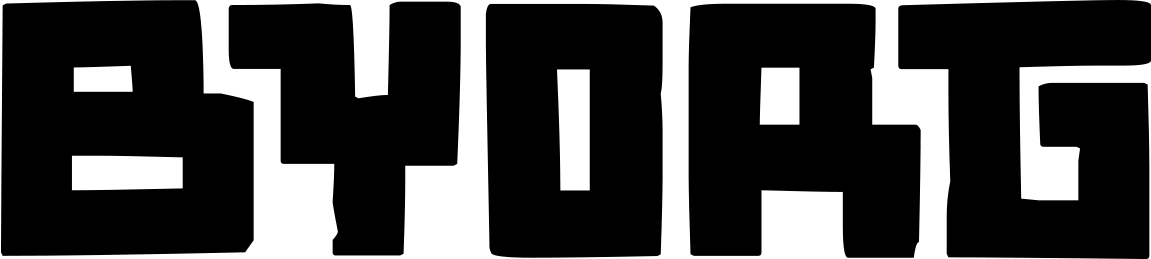
Byorg Font
Within the heavy and crooked characters of Byorg lies a distinct hint of playfulness as well as confidence that we bet you can use for many of your designs.
You’ll come to realize that this gaming font is not suitable for body text, especially since it does not contain the lowercase version. However, it does make a great choice for gaming, store names, websites, digital lettering, or other creative projects.